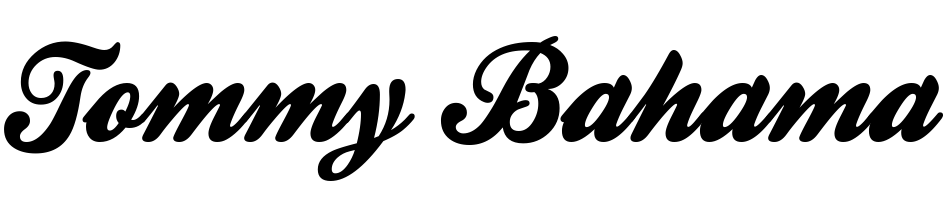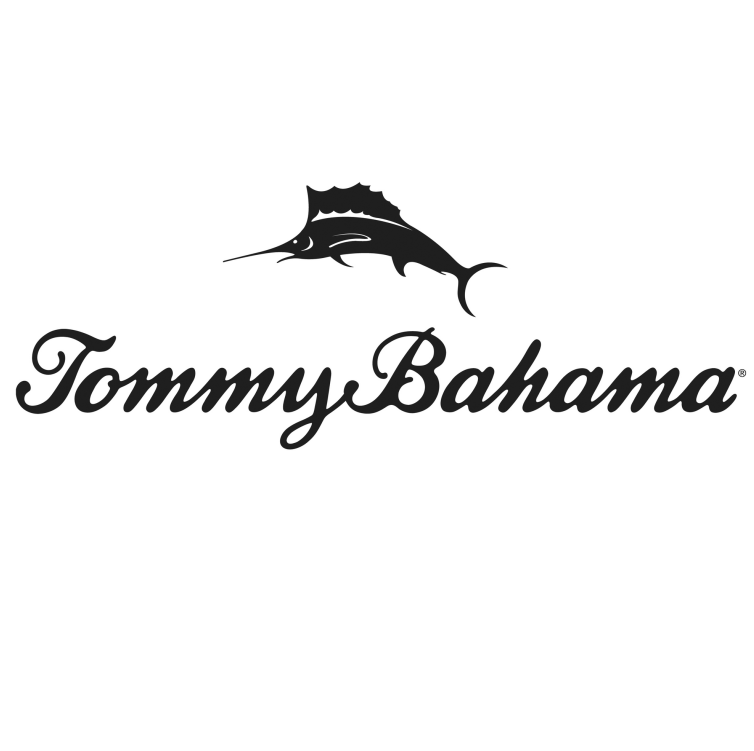
Tommy Bahama Font
ApparelTommy Bahama is a lifestyle brand that was founded in 1992 by Tommy Bahama and his business partner, Bob Emfield. The brand is known for its relaxed, tropical-inspired clothing and accessories, as well as its home decor and furniture lines.
The Tommy Bahama logo is very similar to a font named Kestrel Script. Letraset first released the script typeface in 1985 which was later digitized by Alan Meeks in 2010. There is a strong familiarity between the script typeface and Morris Fuller Benton’s Commercial Script.